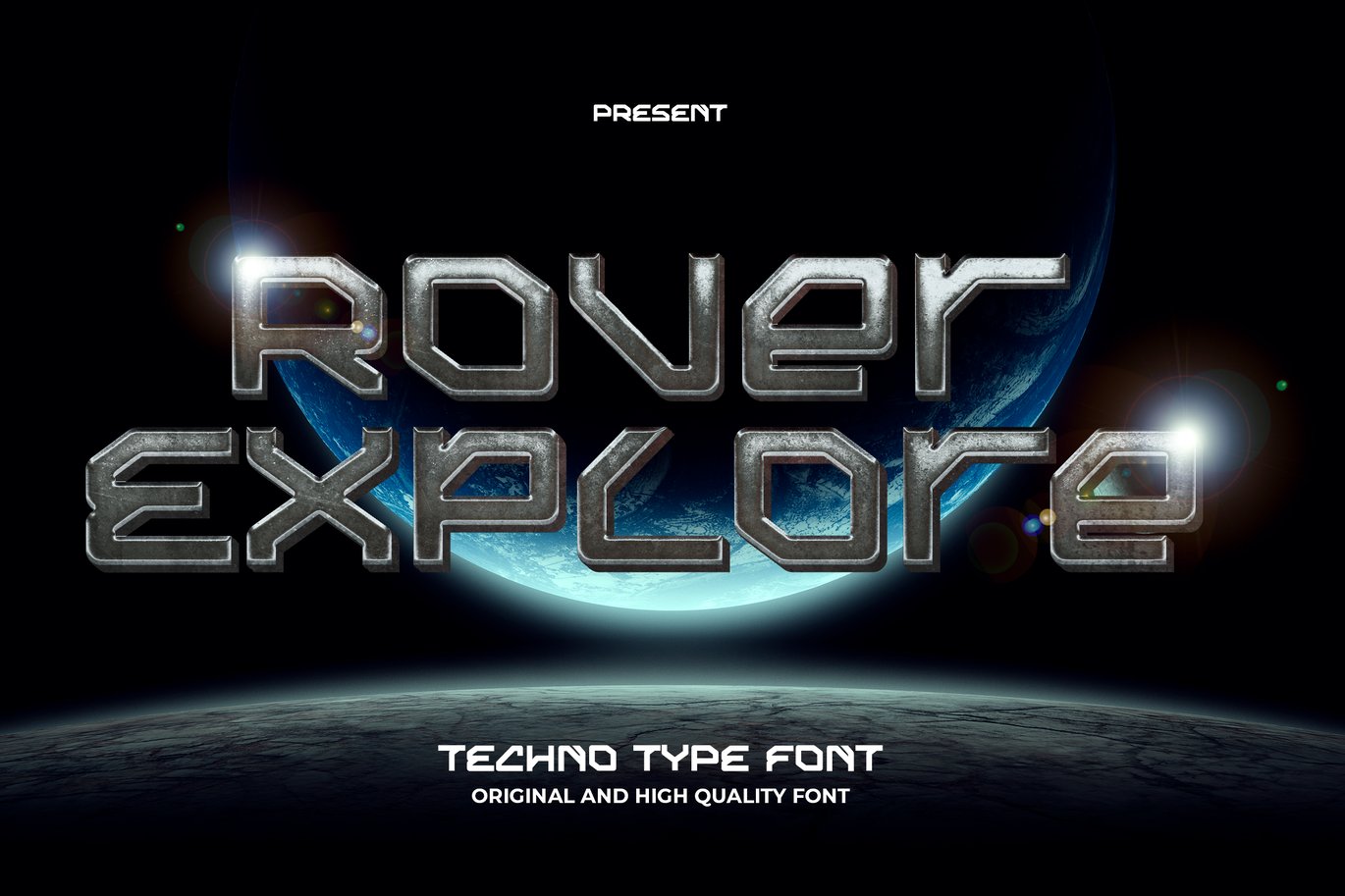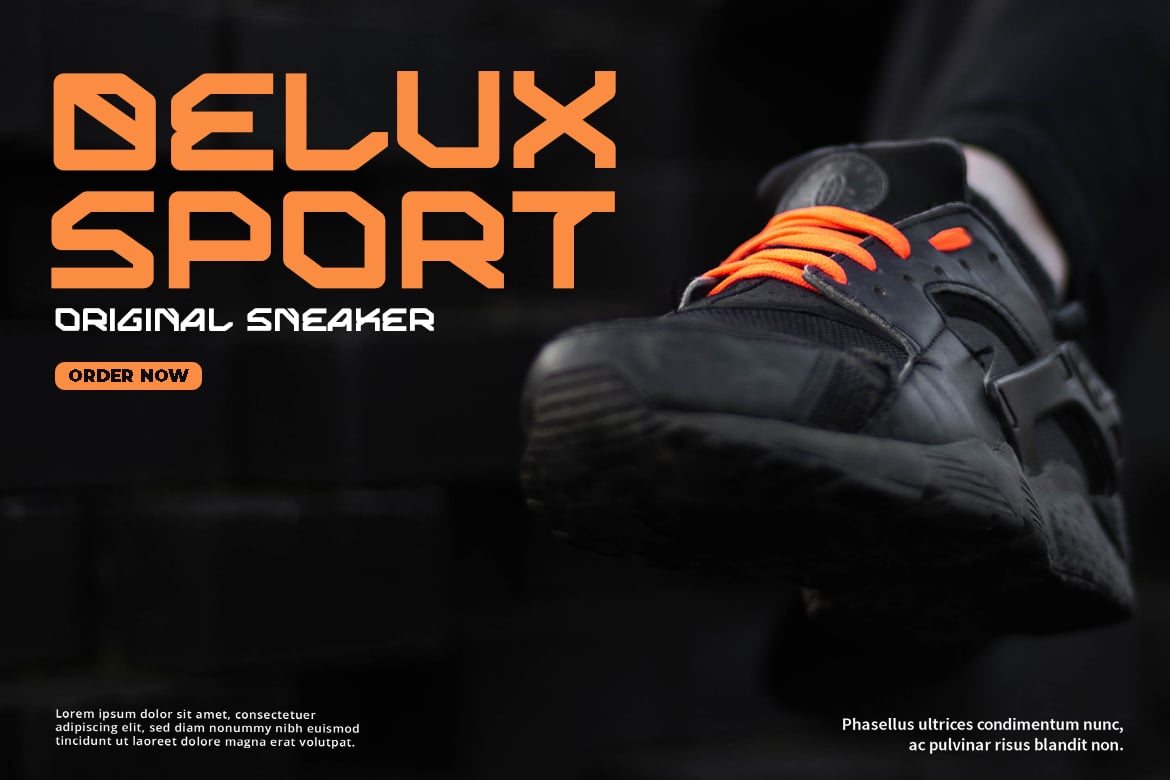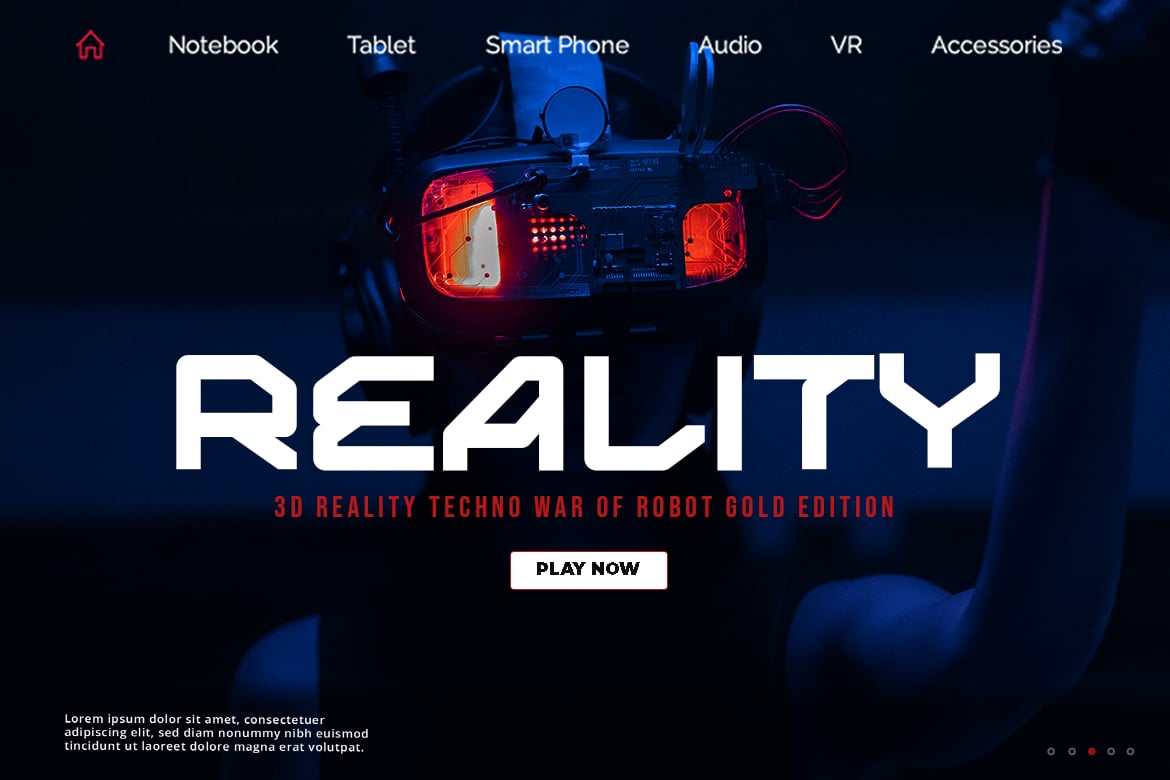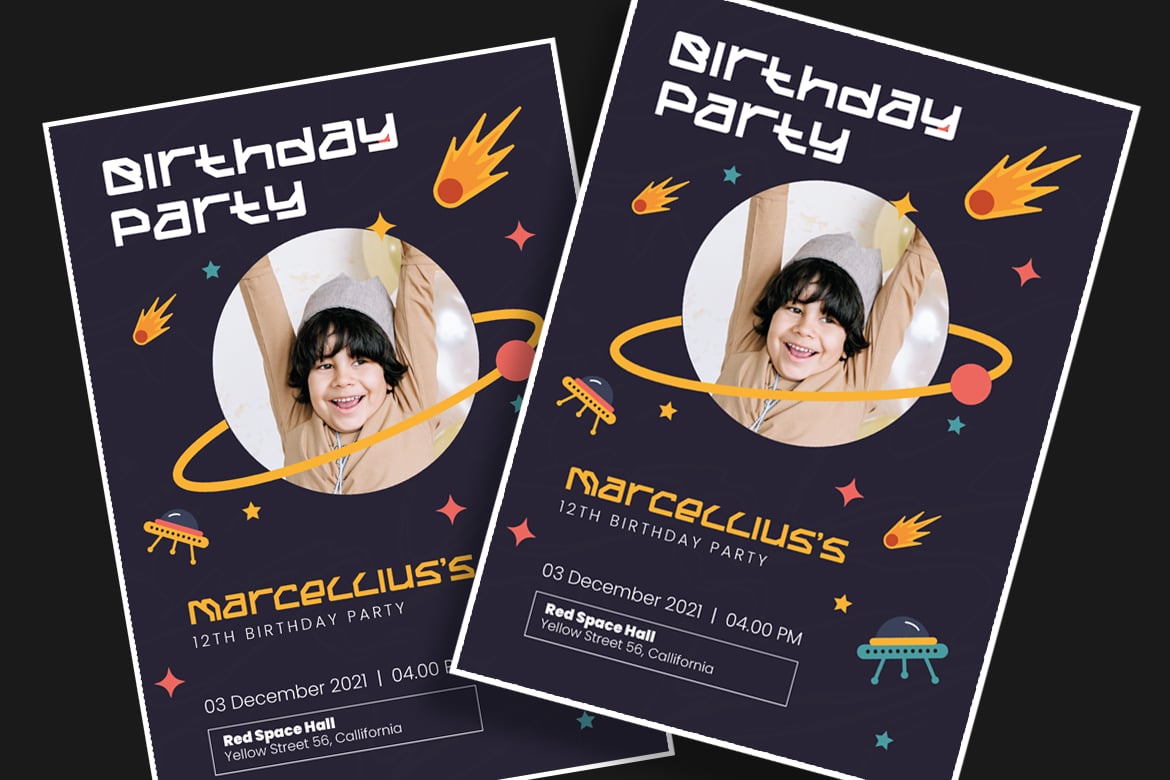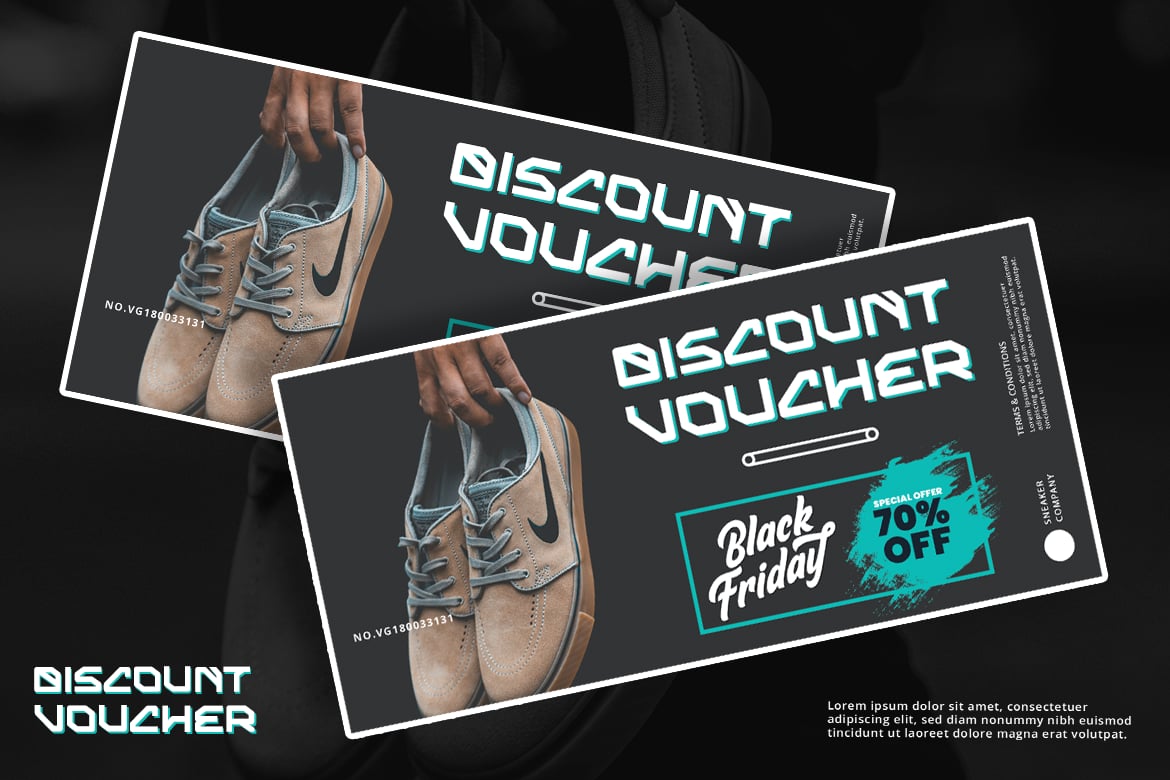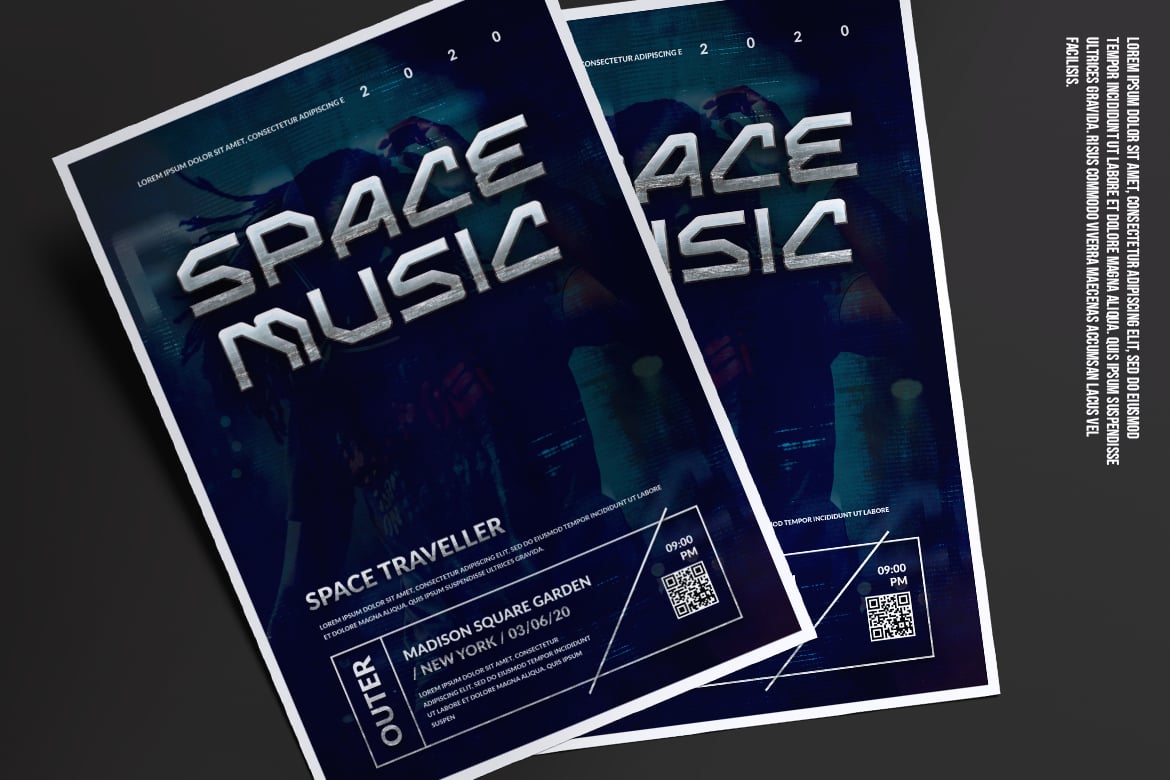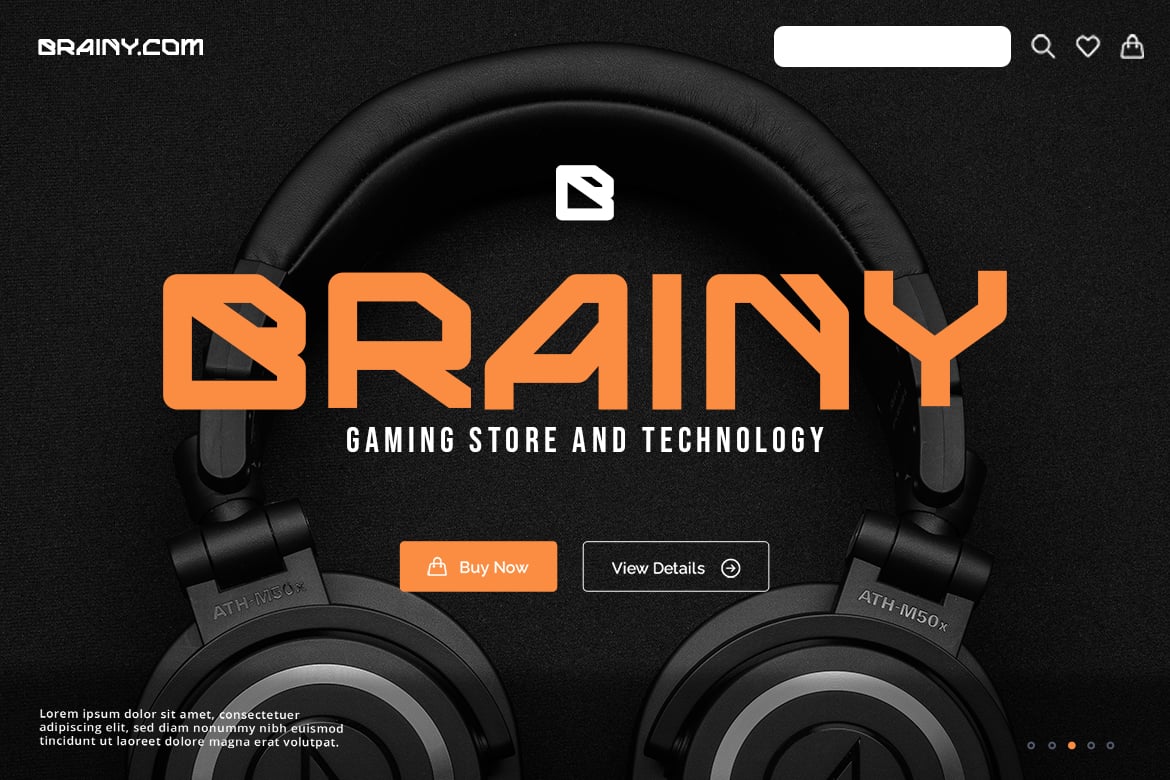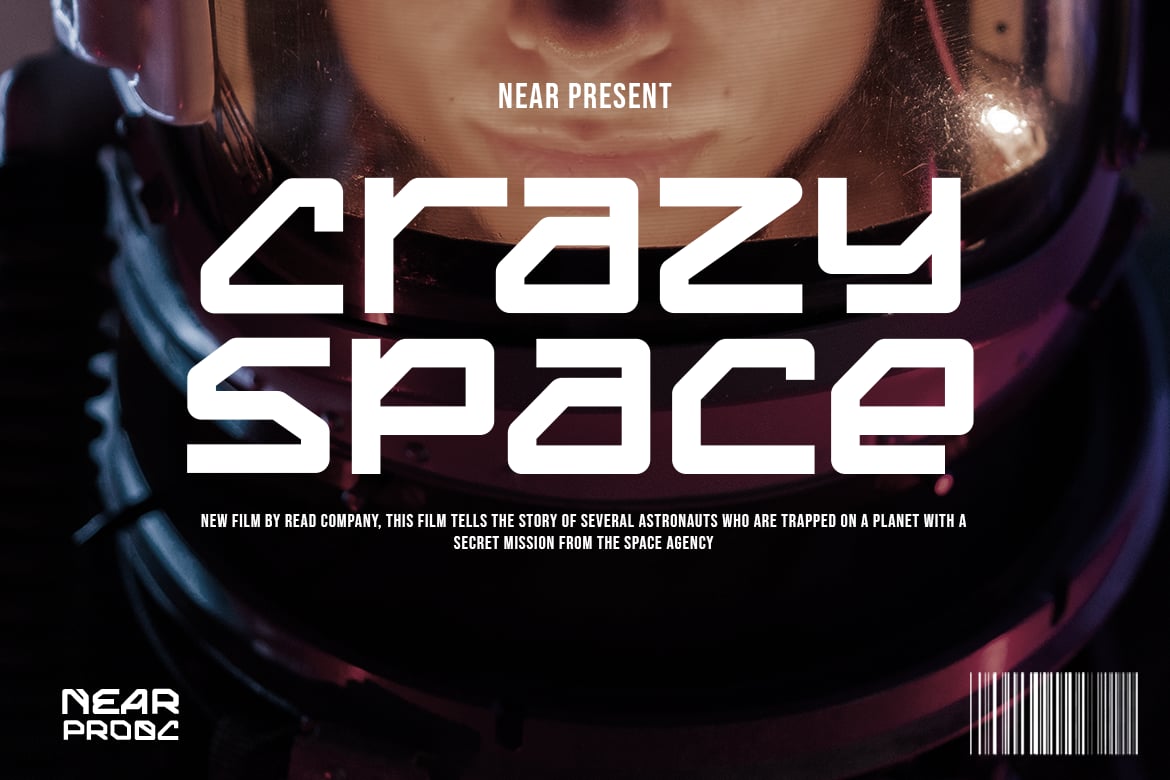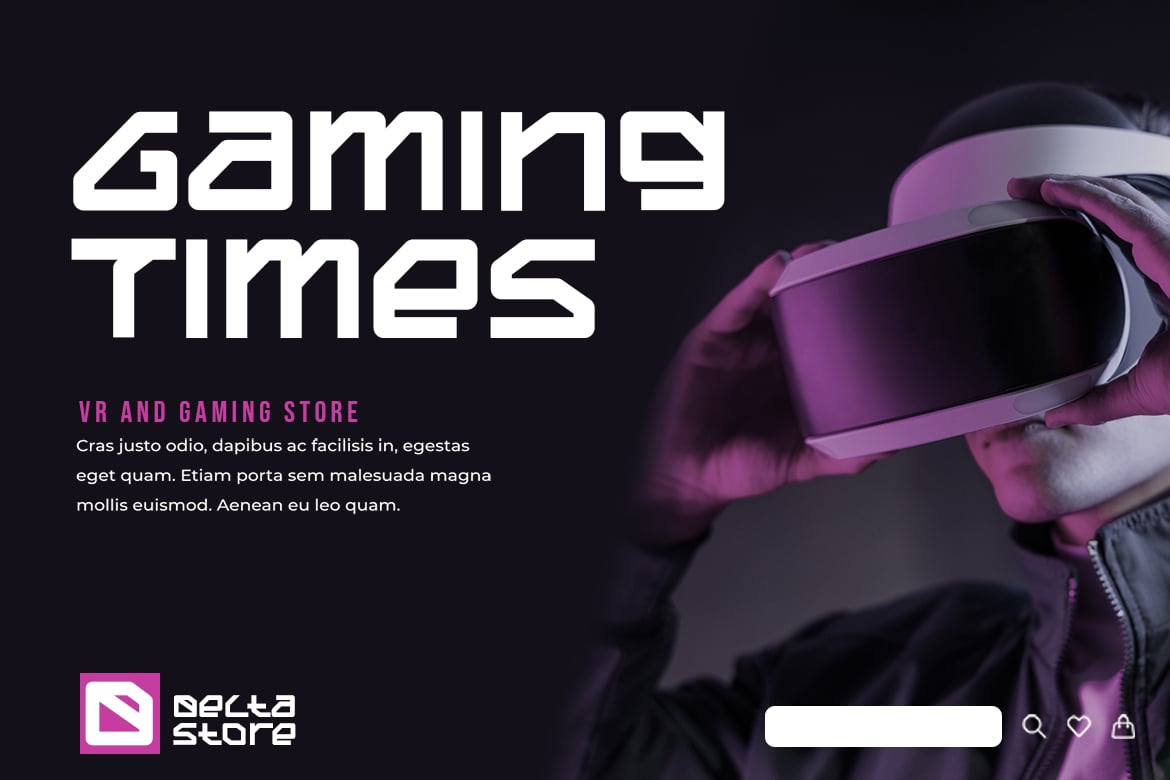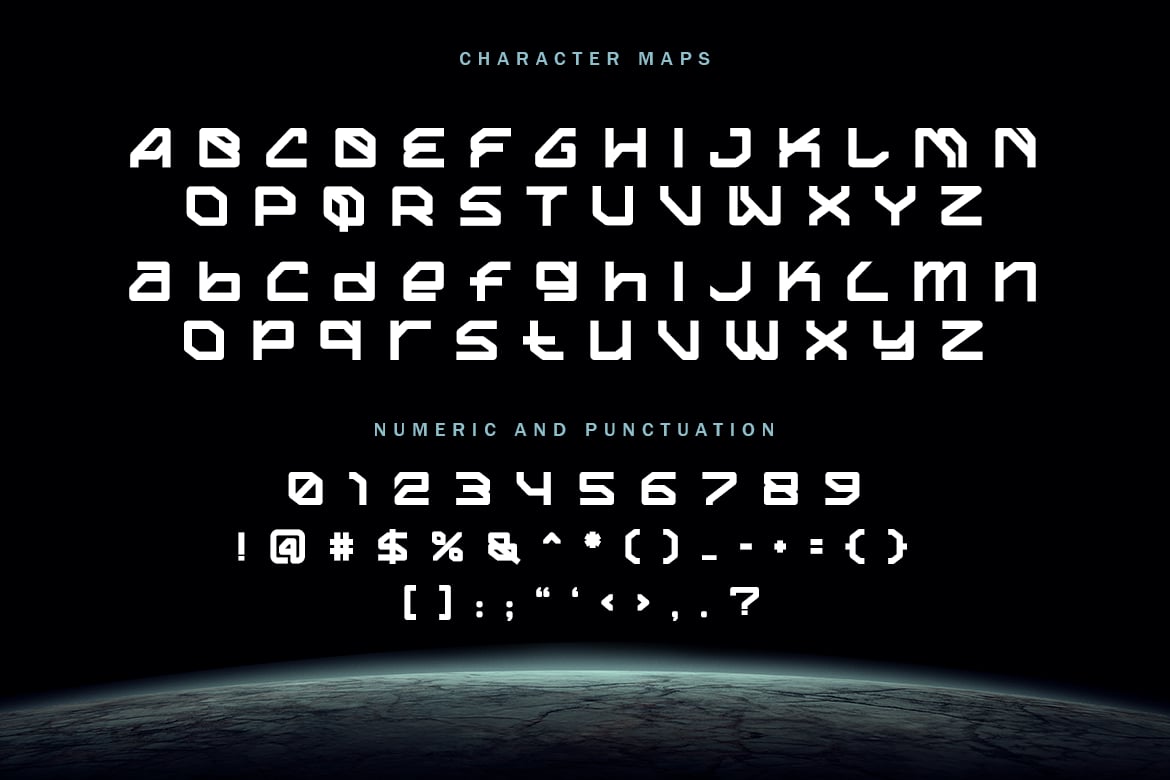
Rover Explore – Futuristic Sci-Fi Font
I present “Rover Explore,” a cutting-edge font that embodies the future and technology. This font belongs to the Futuristic category and features techno, sci-fi, and space-style perfect for your next futuristic project.
The Rover Explore font is ideal for use in various designs, including future and science-based magazines, posters, movie titles, music posters, YouTube covers, thumbnails, social media page covers, and more. With its clean, modern lines and space-inspired elements, Rover Explore is the perfect font to add a touch of futuristic flair to any project.
Whether creating a science-fiction movie poster, designing a technology-themed website, or putting together a futuristic magazine spread, Rover Explore has you covered. This font’s modern, edgy style is perfect for capturing the essence of the future and its possibilities.
With its unique combination of techno, gaming, and science elements, Rover Explore is a font that will make your projects stand out from the crowd. So why wait? Get Rover Explore today and start exploring the future of design!